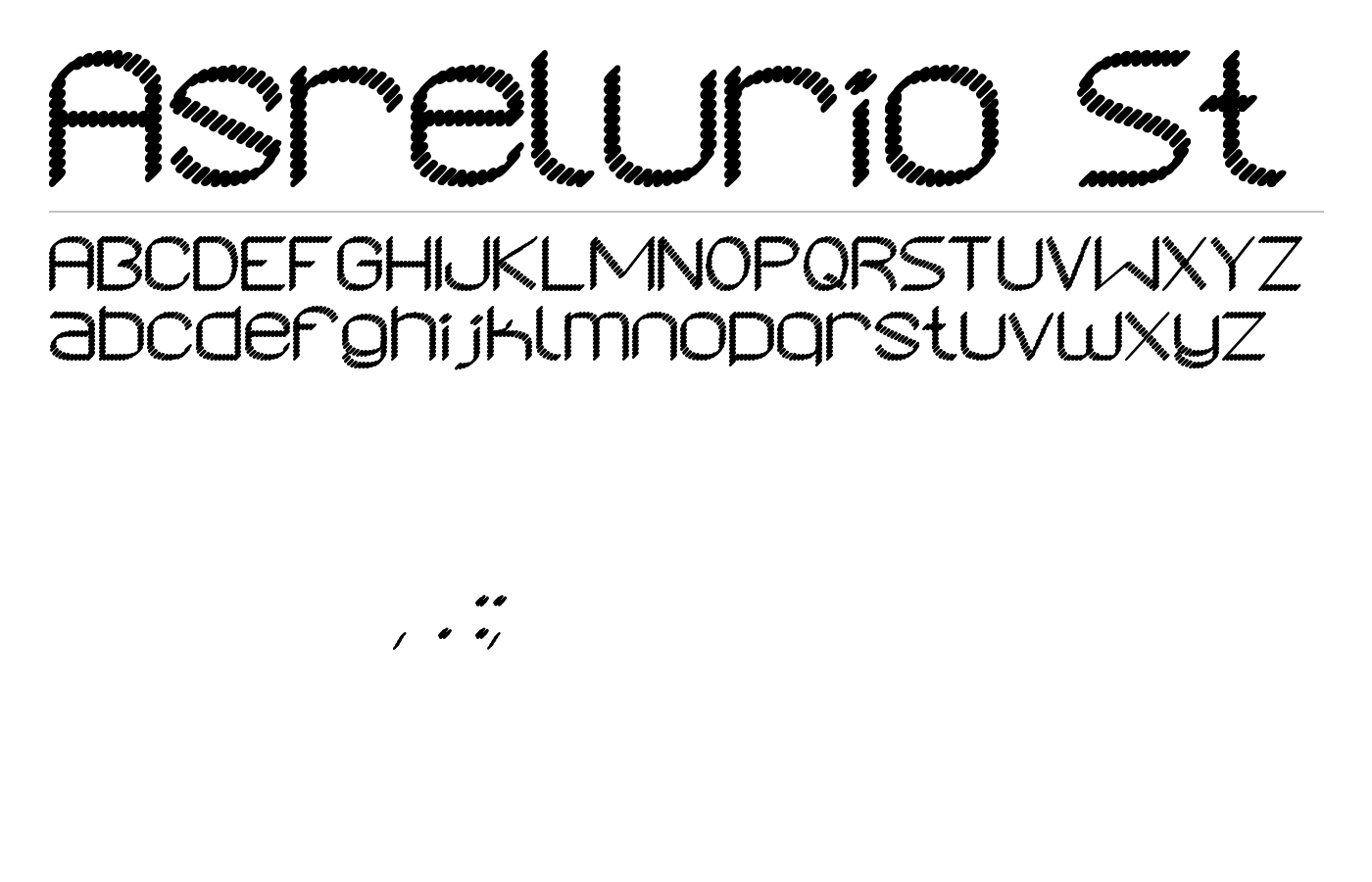
Asrelurio St is a modern sans-serif font characterized by its unique spiral-like, textured stroke pattern that gives it a distinctive and dynamic appearance. With a light weight and open, airy letterforms, it combines a playful yet stylish vibe that works well for creative branding, headlines, and display uses where a fresh, unconventional look is desired. This font’s quirky design makes it ideal for eye-catching logos, posters, and digital projects aiming to stand out with a contemporary and artistic flair.
Asrelurio St Font
About Asrelurio St Font
| Font family | Asrelurio St Font |